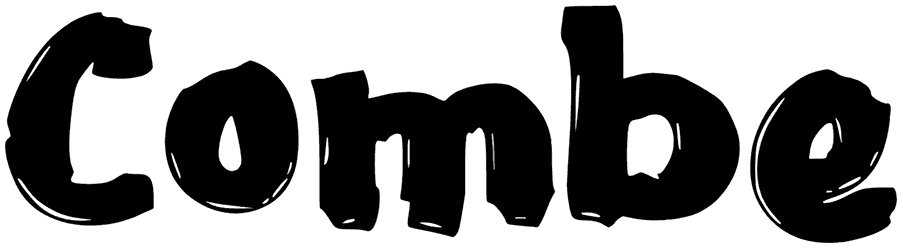
c Combe Font
The chunky and bold characters of c Combe can evoke a sense of jauntiness, majesty, or viability in the audience’s minds and easily persuade them to follow your graphic content, including illustrations, storybook covers, stickers, or social media posts. So, pick up this lovely adventure font for your editorial projects and notice how it makes them look more interesting to the audience.